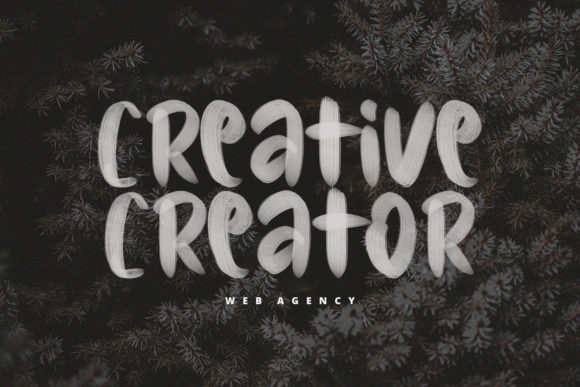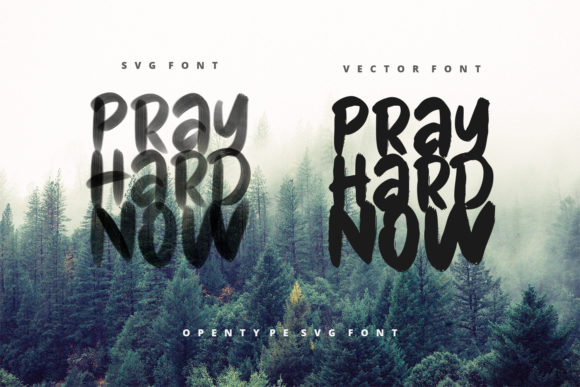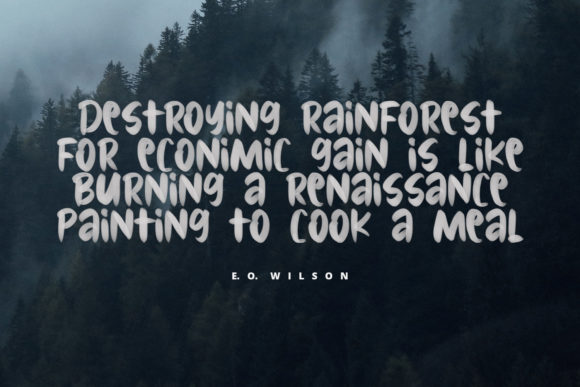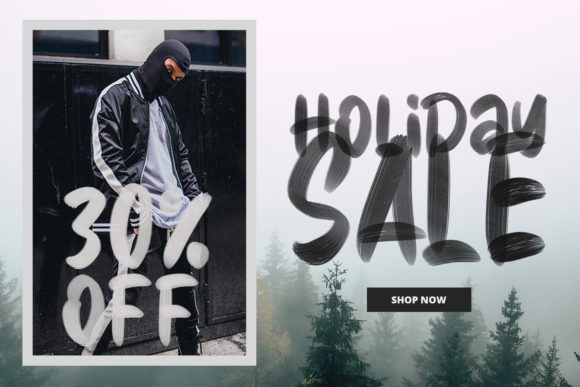
About Pray Hard Now Font
“The Pray Hard Now” is a striking SVG font that adds a bold and unique look to your designs, helping them stand out with its distinctive style.
This font is designed to make a statement and grab attention. Its bold letterforms and intricate details create a visually striking effect that instantly captivates the viewer. Whether you’re working on posters, logos, headlines, or any other design project, “The Pray Hard Now” will add a powerful and memorable touch.
With its SVG format, this font offers a level of detail and depth that traditional fonts may not provide. The scalable vector graphics allow for high-resolution output, ensuring that your designs look sharp and visually impactful across different mediums.
Embrace the boldness of “The Pray Hard Now” and let it bring a unique look to your designs. Whether you’re aiming for a modern, edgy, or artistic aesthetic, this font will help you achieve your desired outcome with its strong presence.
Make your designs stand out from the crowd with “The Pray Hard Now.” Its striking appearance will draw attention and create a lasting impression. Use it confidently in your design projects, and watch as it elevates your work to new heights.